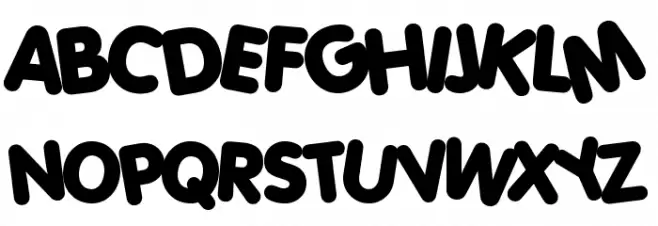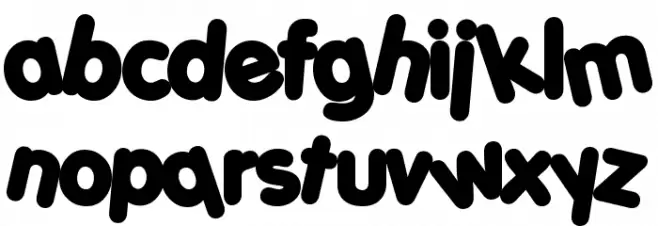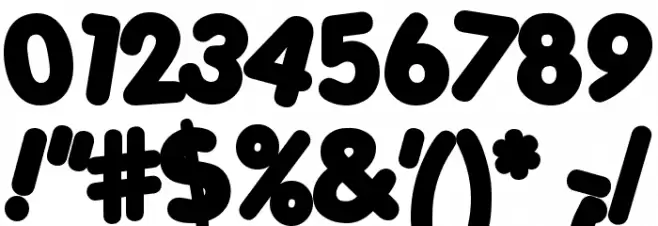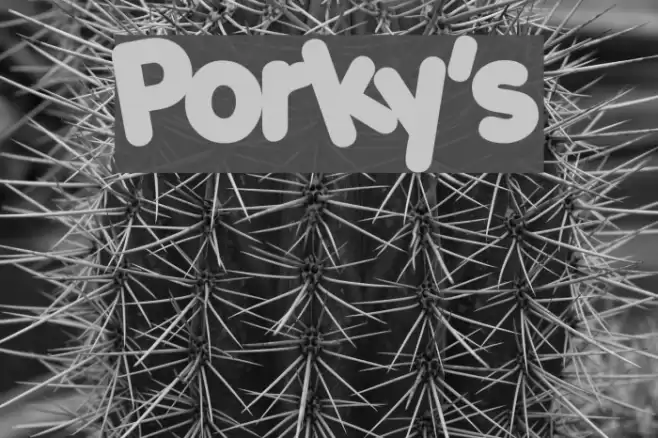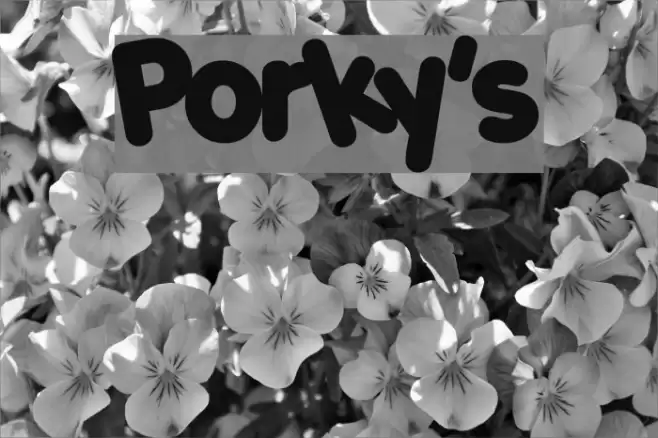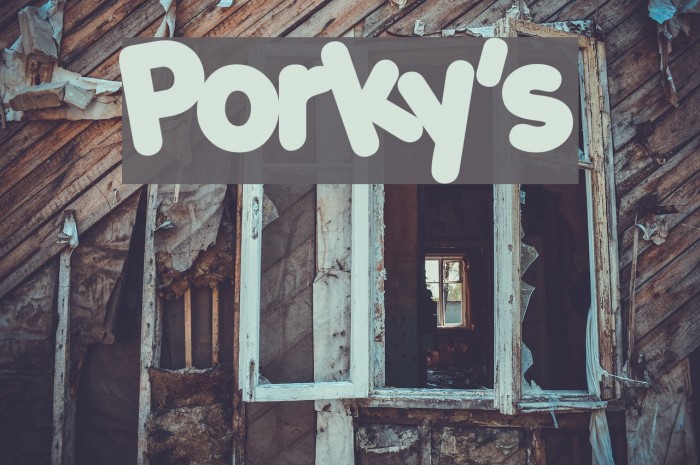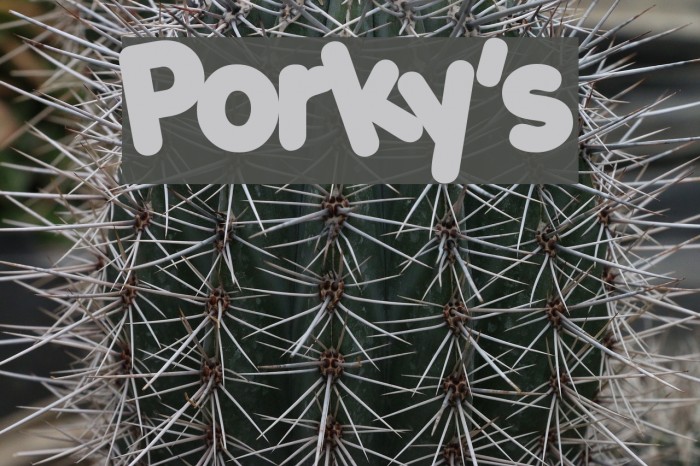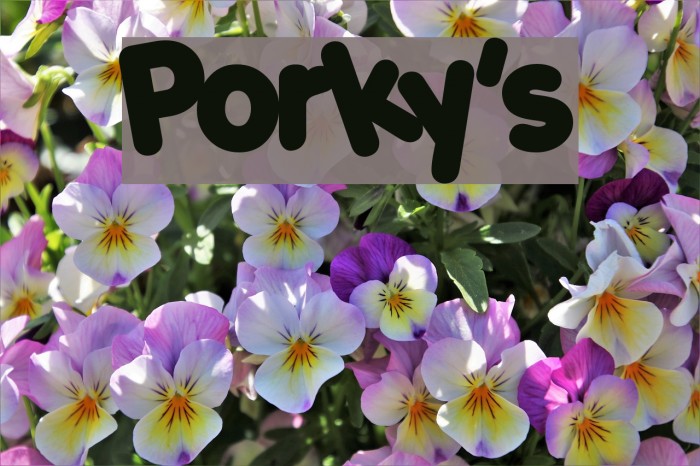
Porky's
This playful and bold font features thick, rounded letters that convey a sense of fun and energy. The characters are uniformly wide, with a slightly condensed appearance that enhances their boldness. The uppercase and lowercase letters maintain a consistent style, with smooth curves and a uniform stroke width. The numbers and special characters are equally bold and rounded, ensuring a cohesive look across all elements. This font's design is ideal for capturing attention and adding a lively touch to any project.
A bold, playful font with thick, rounded letters and a lively style.
- Proposed Projects: Ideal for children's books, playful branding, party invitations, and eye-catching posters.
- Width: Condensed
- Overall Style: Playful
- Use Case: Headlines, Logos, Posters